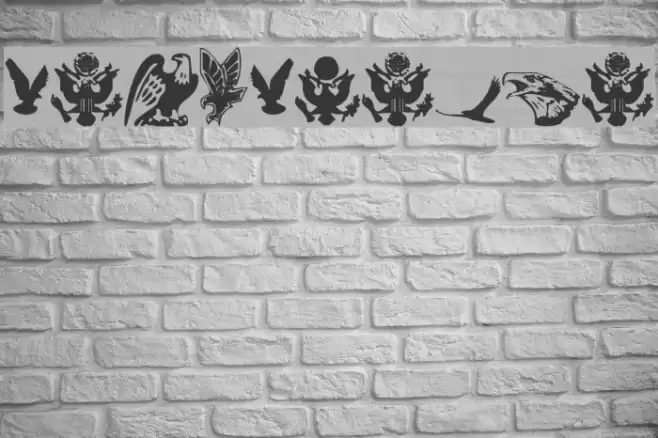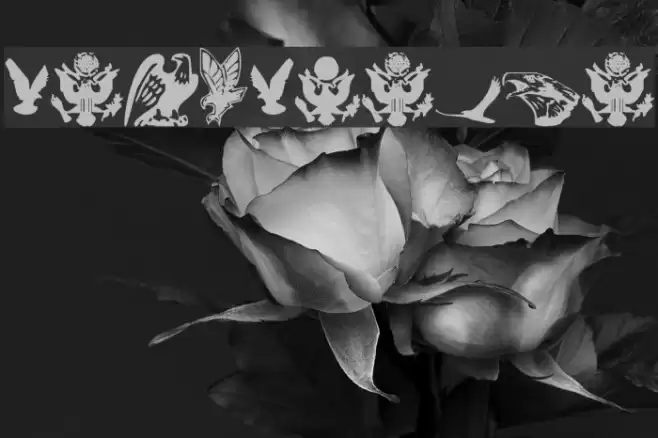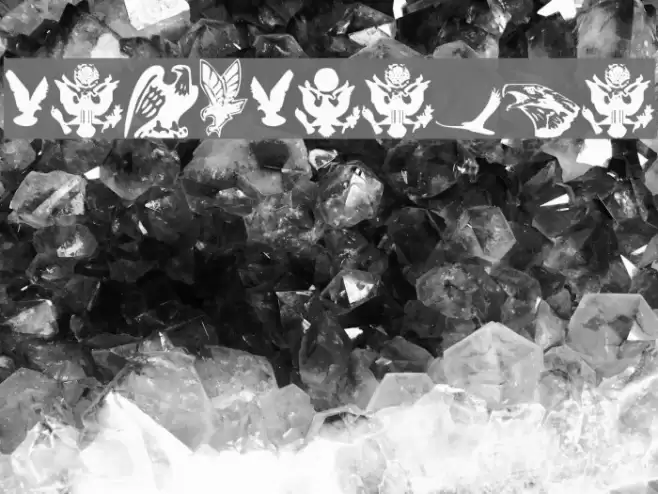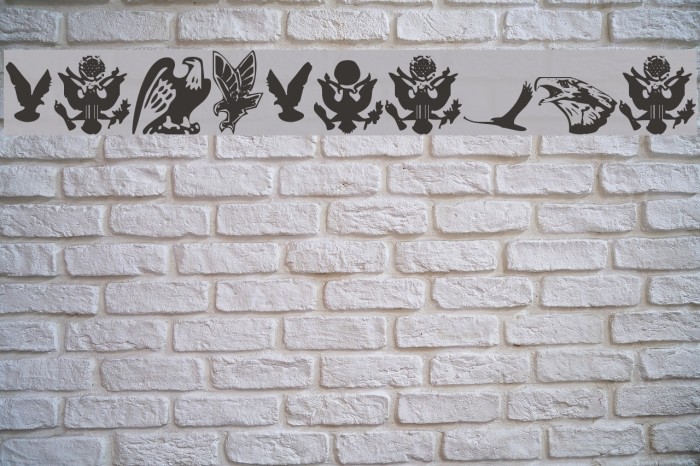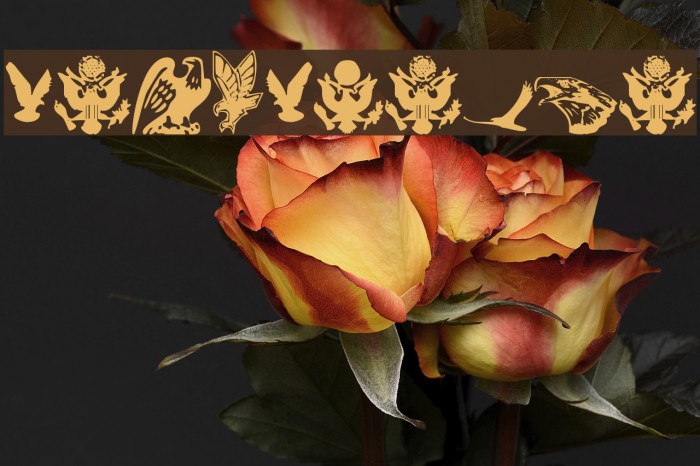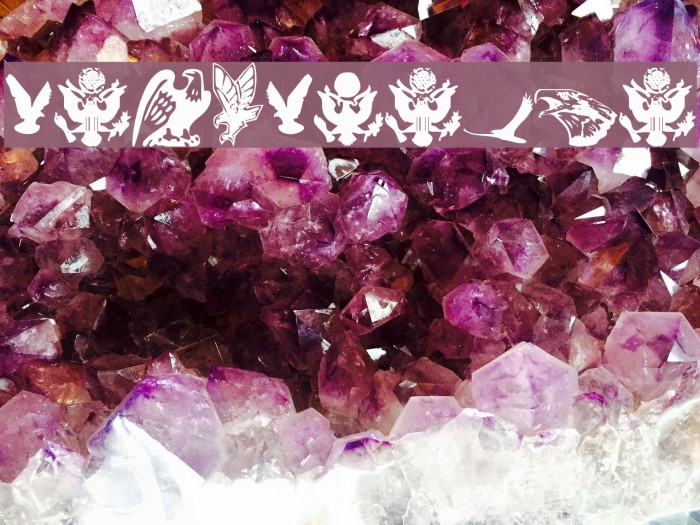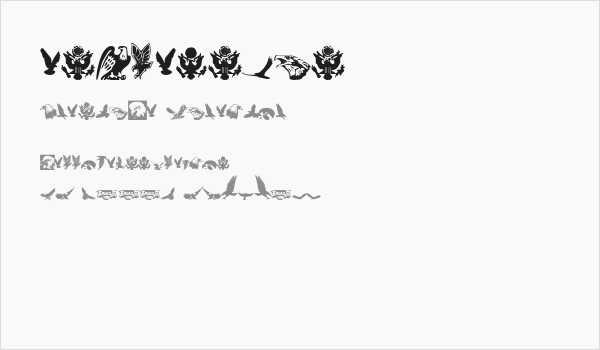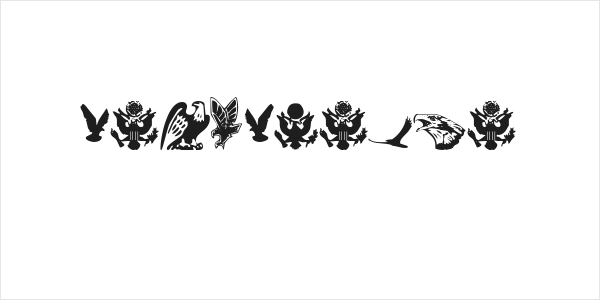
Eaglemania Font
Eaglemania Description
A collection of bold, high-contrast eagle and bird-themed pictograms and logos, rendered in solid black and white with a mix of realistic and stylized silhouettes, heads, wings, and emblems.
Bold eagle and bird icon set with varied styles and strong contrast from Dingbats fonts.
- Proposed Projects: Sports team logos, patriotic designs, wildlife branding, tattoo art, mascot graphics, educational materials.
- Overall Style: Decorative, Modern, Emblematic
- Use Case: Logos, Branding, Posters, Merchandise